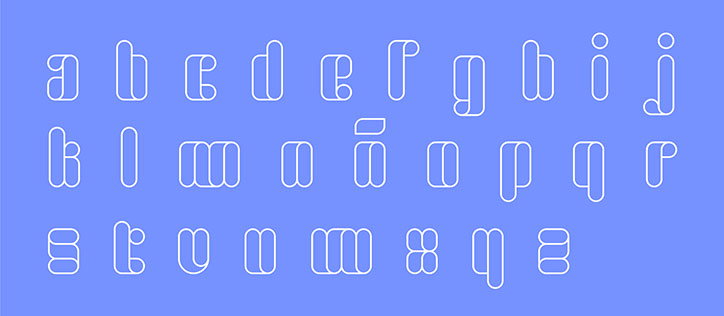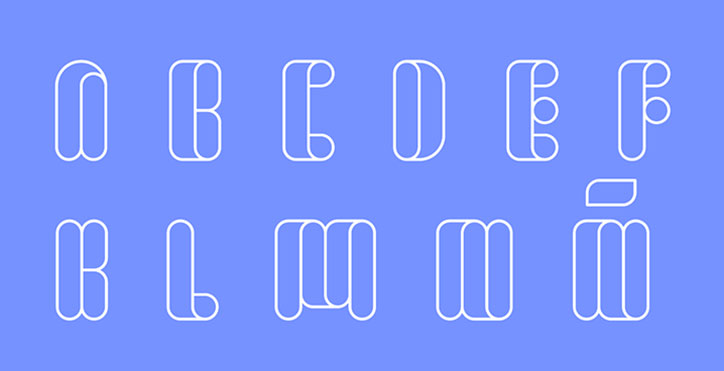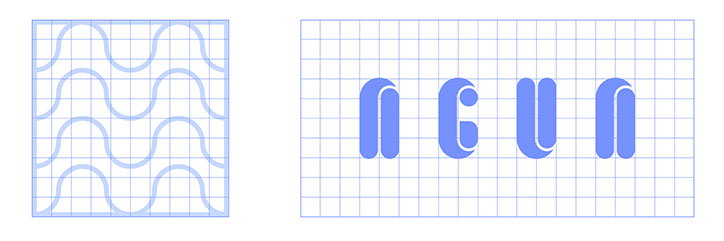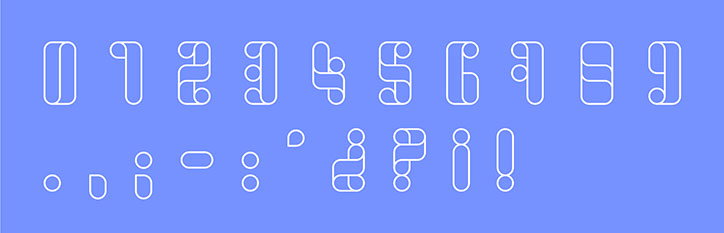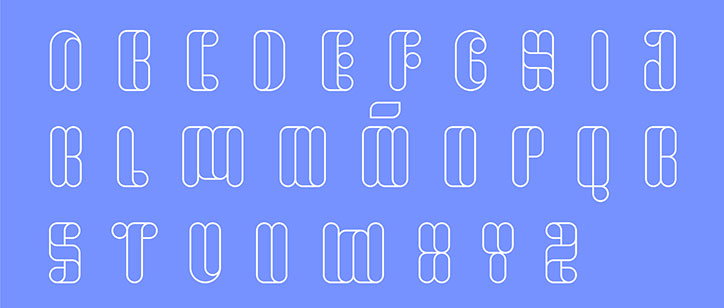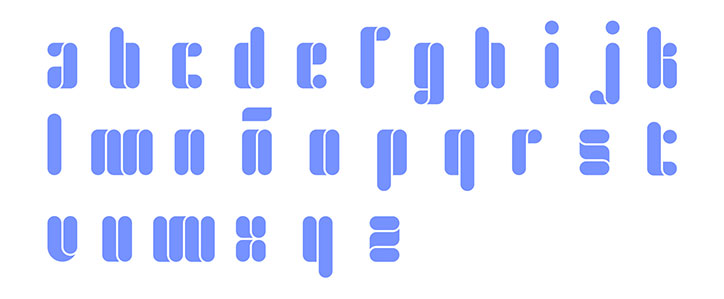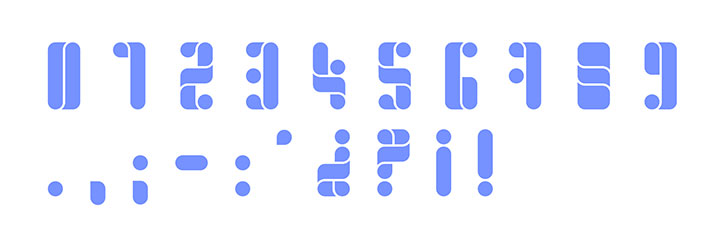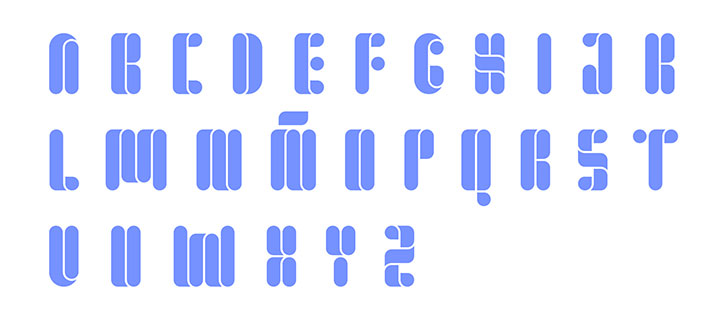
Font of Life: a typeface-led fundraising campaign for World Water Day by Azul Recreo
Azul Recreo: Font of Life
Madrid-based design studio Azul Recreo has released a font for World Water Day, which can be downloaded in exchange for a donation to non-profit organisation Ongawa. The Font of Life campaign will give 100% of the proceeds to building safe water fountains in countries with a lack of water purification and sanitation.
The modular typeface draws from a “geometric representation of the movement of water,” says the Spanish studio’s co-founder Mateo Buitrago. A regimented wave pattern was used as a basis for the letter forms, which comprise sections of elongated rounded cuboid shapes. The face comes in two styles, stencil and block.
Azul Recreo: Font of Life